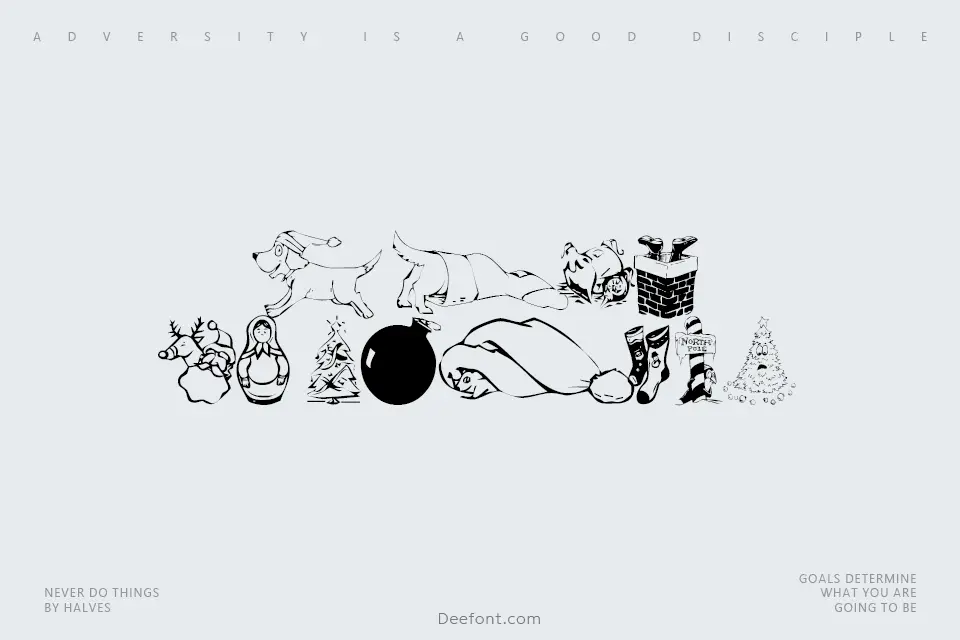
KR Christmas Dings 2004 Font
KR Christmas Dings 2004 is a festive dingbat font featuring an array of Christmas-themed decorative icons. This ornamental typeface includes holiday symbols such as reindeer, holly leaves, bells, candles, sleighs, gifts, and other seasonal embellishments. With its whimsical and playful design, the font is perfectly suited for holiday greeting cards, festive invitations, Christmas-themed posters, and seasonal decorations. The bold and easily recognizable icons work effectively for both digital and print media applications, making it an ideal choice for adding festive charm to creative projects.